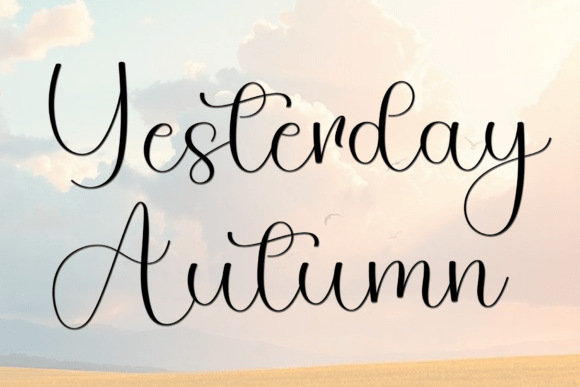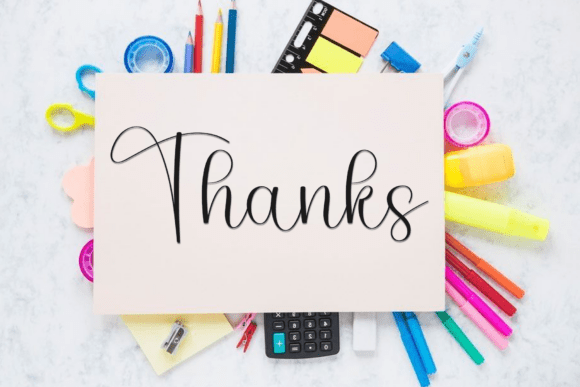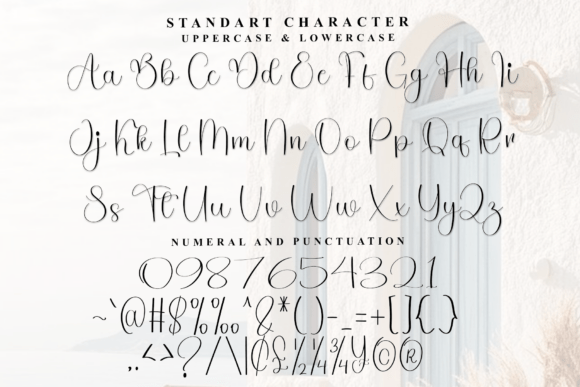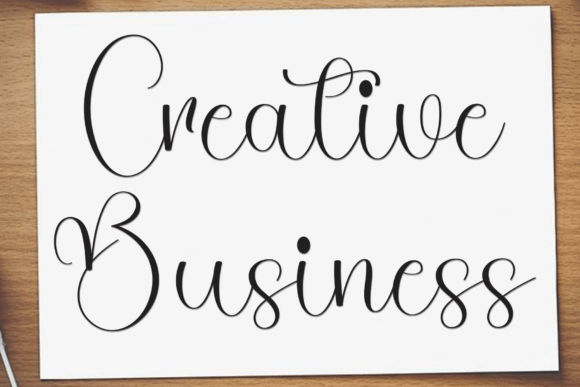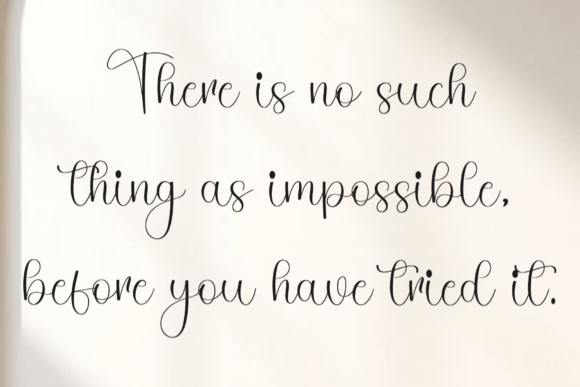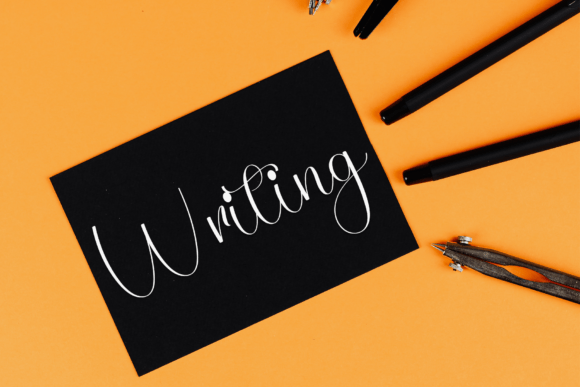
The Magic of the Bestie Valentine Font
As I sat at my desk, surrounded by scraps of paper, glue, and glitter, I couldn’t help but feel the excitement of the holiday season. It’s that time of the year when creativity knows no bounds, and our imagination runs wild with ideas for gift tags, greeting cards, and festive projects. And, of course, the perfect font to capture that magic is the Bestie Valentine Font.
This enchanting typeface is designed to spread cheer and nostalgia with its whimsical flair and decorative elements. Whether you’re a seasoned designer or a DIY enthusiast, the Bestie Valentine Font is sure to bring a touch of wonder to your projects. Its PUA encoding makes it easy to access all the amazing glyphs and ligatures, allowing you to unleash your creativity and let your typography shine.
Bestie Valentine Font Key Features
- Font Style: A playful, cursive script font perfect for Valentine’s Day or any romantic occasion.
- Character Count: 800+ glyphs, including Latin, Cyrillic, and Greek alphabets, as well as various symbols and emojis.
- Font Size: Supports font sizes from 8pt to 72pt, with optimal readability at 12pt and above.
- Resolution: Designed for high-resolution displays, including Retina and 4K screens, with a resolution of 300 DPI or higher.
- Unique Characteristics: Features swashes, ligatures, and contextual alternates to create a unique and personalized look.
Designer Review: Bestie Valentine Font
✨ I have to say, the Bestie Valentine Font has some really charming qualities that make it a great addition to any project. The whimsical, handwritten feel of the font is perfect for capturing a lighthearted, playful vibe.
One of the things I love about this font is its versatility – it’s great for both digital and print projects, and it works well in a variety of contexts, from social media graphics to greeting cards.
Some of the key strengths of the Bestie Valentine Font include:
- ✨ Its playful, cursive feel makes it perfect for adding a touch of whimsy to any project.
- ✨ The font is highly customizable, with a range of sizes and styles to choose from.
- ✨ The Bestie Valentine Font is also very easy to read, even at smaller sizes.
⚠️ However, there are a few limitations to keep in mind. The font can be a bit too playful for some projects, and it may not be suitable for more formal or professional contexts.
Overall, I’d give the Bestie Valentine Font 4 out of 5 stars. It’s a great choice for anyone looking to add a touch of whimsy to their projects, but it may not be the best fit for more formal or professional work.
Tips for Getting the Most Out of the Bestie Valentine Font
For a romantic and playful look, use the Bestie Valentine font in combination with pastel colors and floral patterns.
Experiment with different font sizes and styles to create a unique and eye-catching design.
Use the Bestie Valentine font to create personalized Valentine’s Day cards, invitations, or social media posts.
The Bestie Valentine font is perfect for:
Valentine’s Day cards and invitations
Wedding invitations and decorations
Baby shower invitations and decorations
Q: Is the Bestie Valentine Font compatible with variable font technology?
Yes, the Bestie Valentine Font is designed to work with variable font technology, allowing for dynamic font scaling and customization. This feature is supported in modern design software, including Adobe Creative Cloud and Figma.